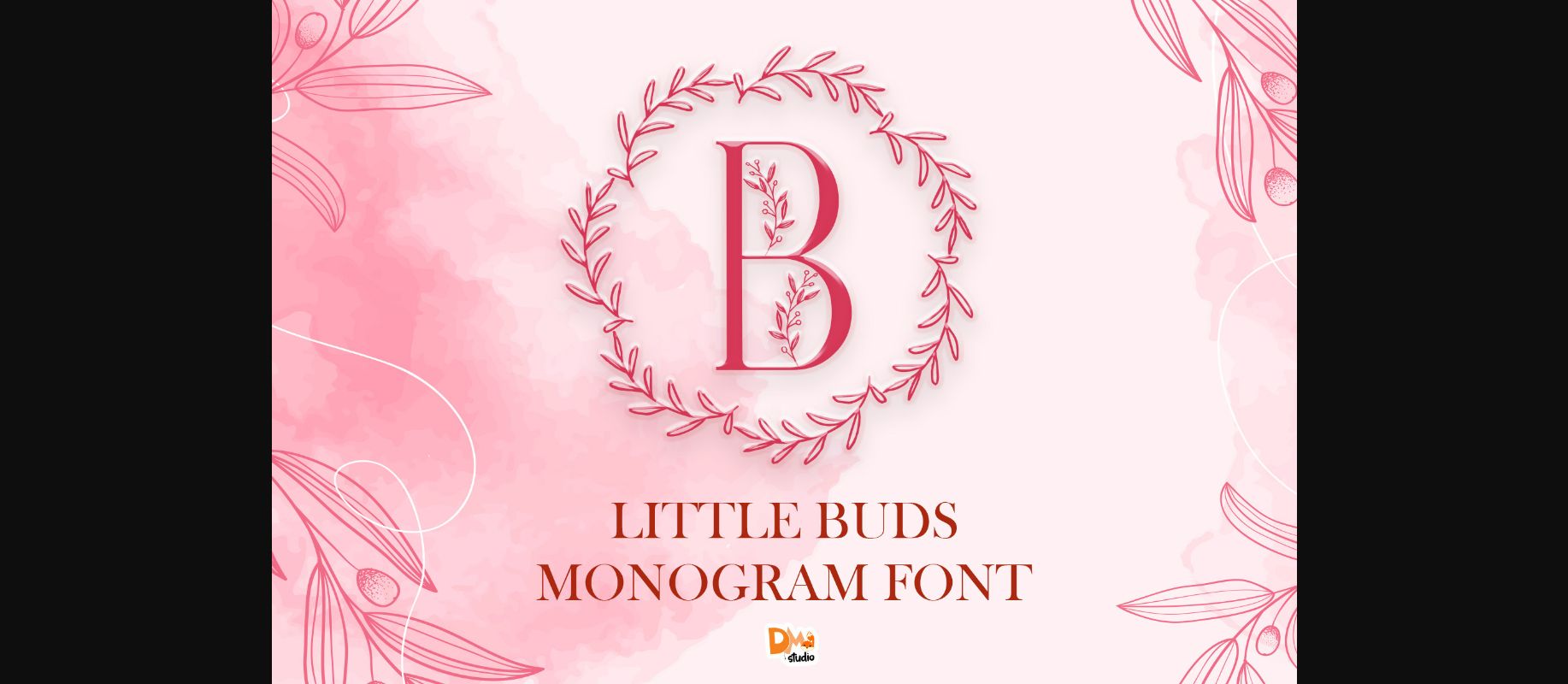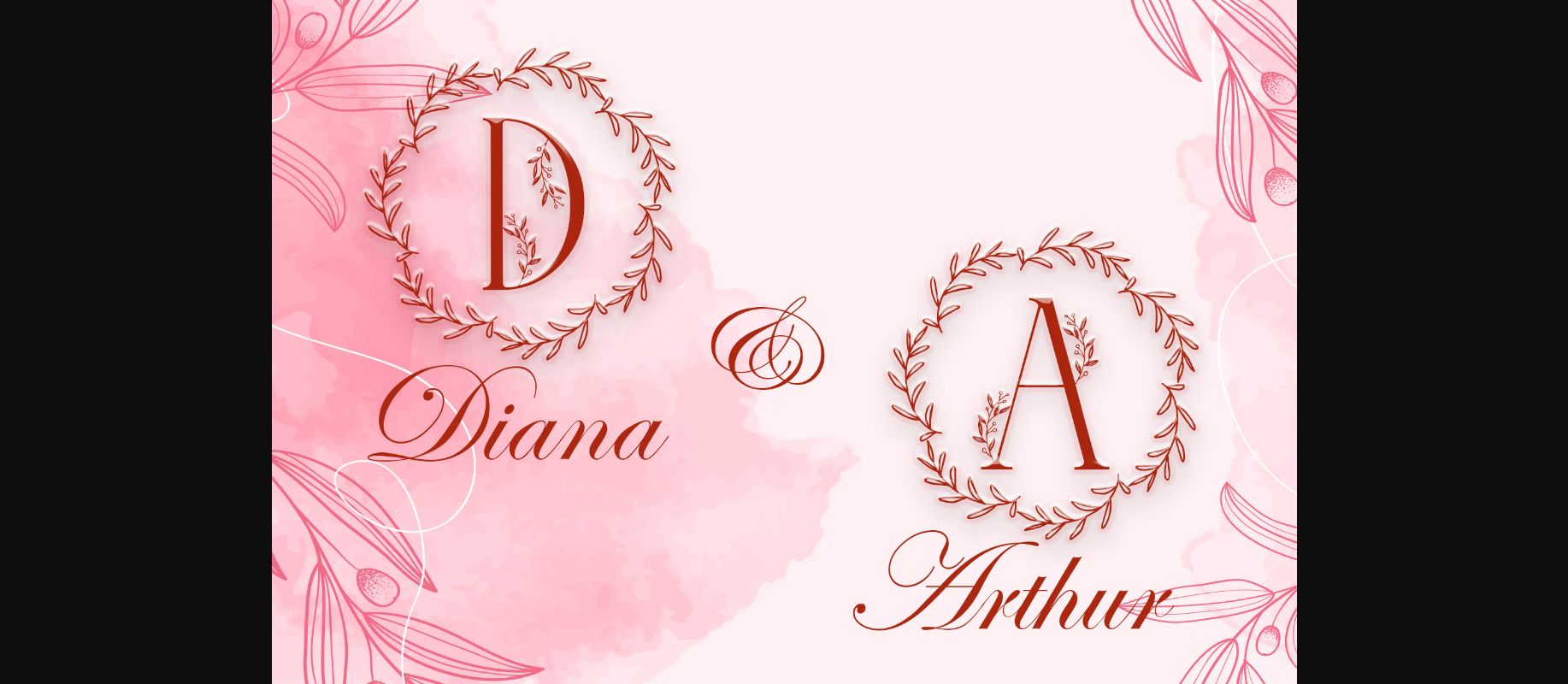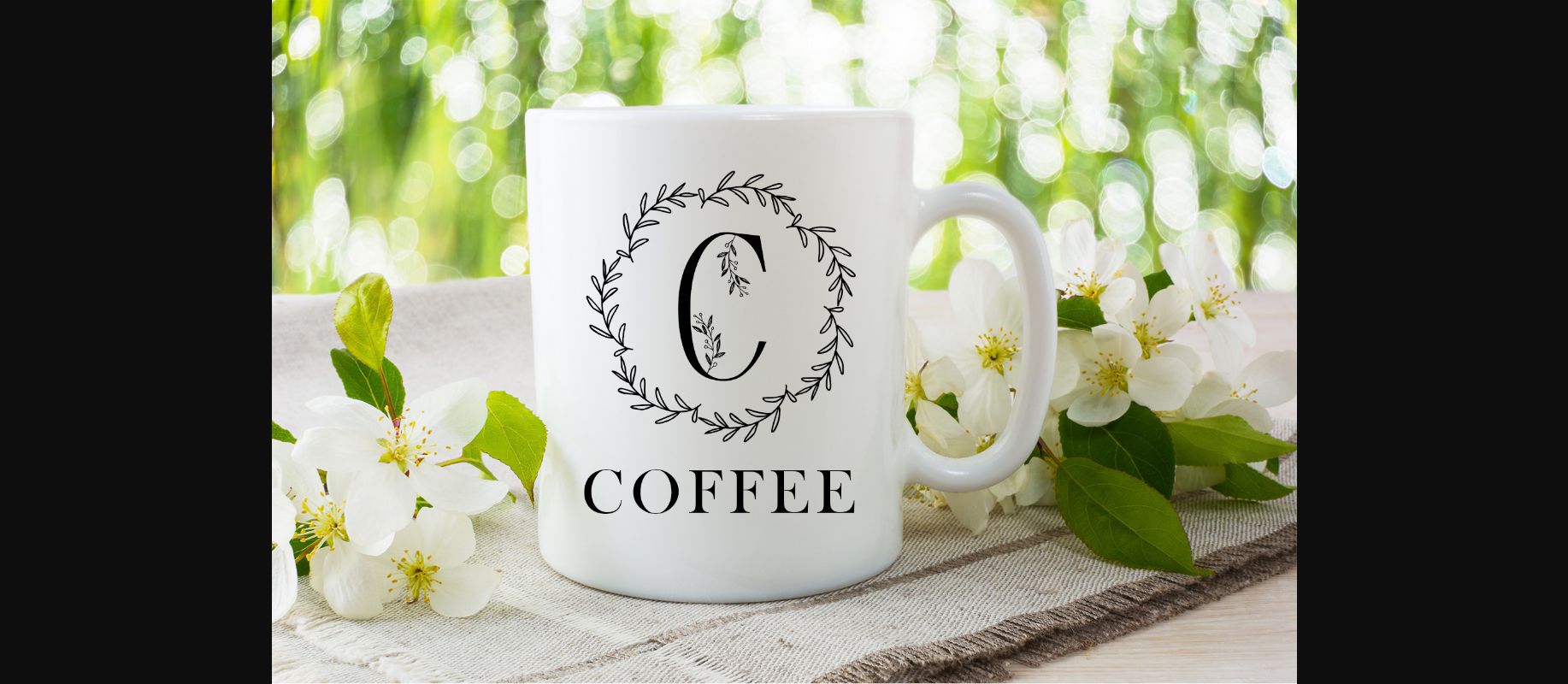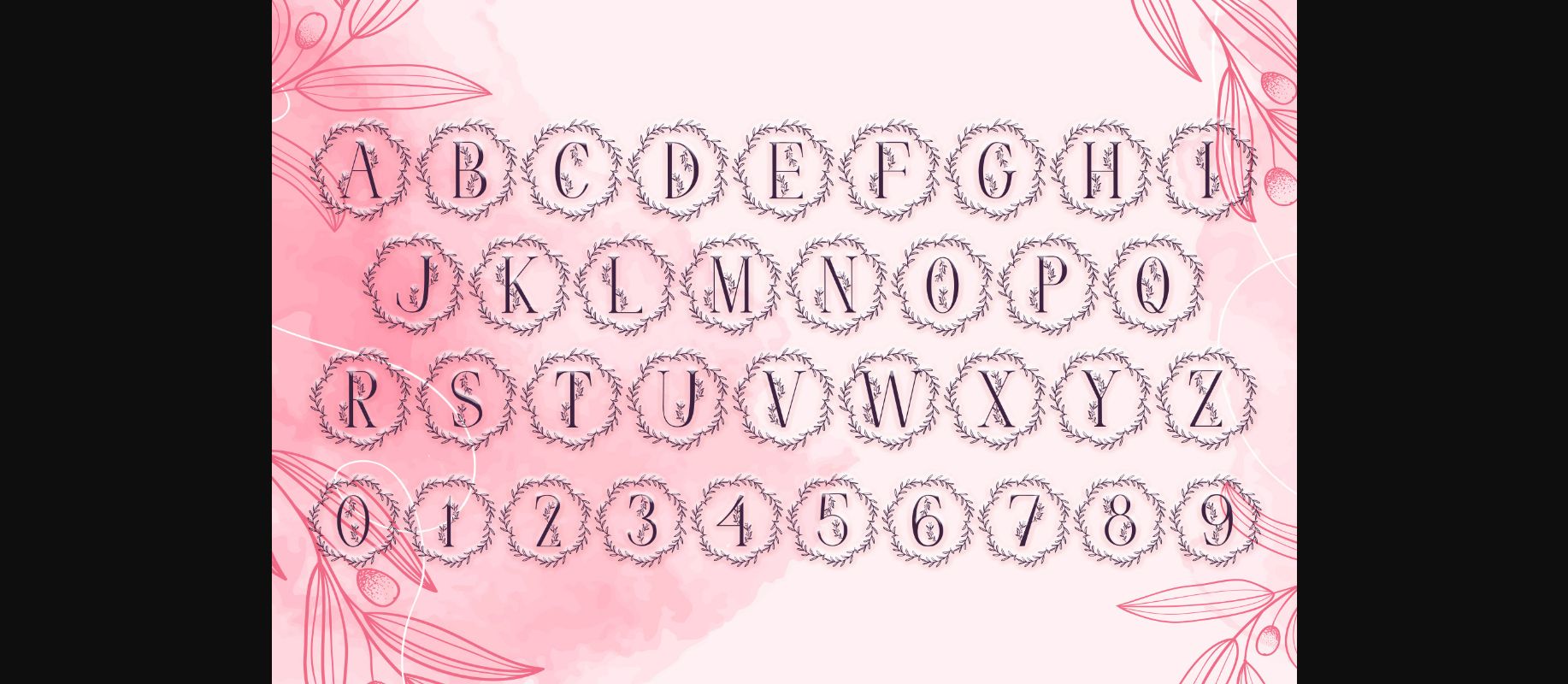
Little Buds Monogram Wreath Font
About Little Buds Monogram Wreath Font
Little Buds Monogram Wreath is a beautiful decorative font. Add this romantic and lovely looking font to each of your love letters, wedding invitations or favorite design ideas, and you will be astounded by the outcome.